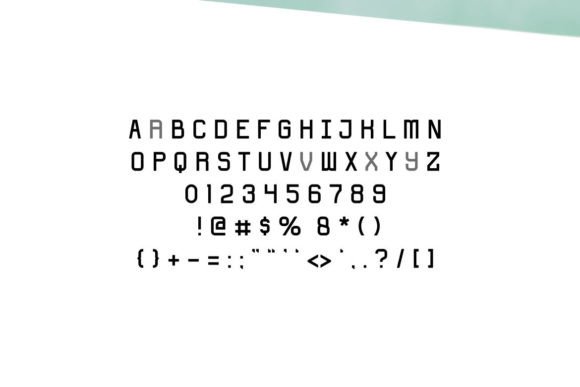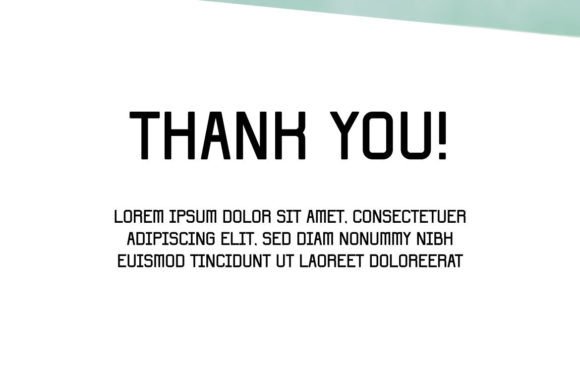
Getting Creative with the Perfect Font
Have you ever been in the middle of a design project, staring at a blank screen, and suddenly, the perfect font pops into your mind? For designers, this is a moment of pure joy. The right font can make all the difference between a good design and a great one.
That’s where the Indent Font comes in – a simple, clean, and natural sans serif font that’s perfect for a wide range of projects. Its versatility makes it a valuable design resource for creatives of all levels. Whether you’re working on a creative project with a transparent background or need a high-quality font for your next design, Indent Font is definitely worth considering.
Key Features of Indent Font
- High-quality design resource ideal for creative projects, with a transparent background for seamless integration.
- Consists of 12 stylish fonts with varying styles and weights, suitable for a wide range of design applications.
- Each font is carefully crafted to provide a unique aesthetic, perfect for adding a touch of elegance to your design project.
Honest Review: Indent Font
As a designer, I’m always on the lookout for high-quality design resources that can elevate my creative projects. The Indent Font is a solid addition to any design arsenal, and here’s why.
- Unique, modern aesthetic: The Indent Font has a distinctive look that’s perfect for adding a touch of sophistication to your designs.
- High-quality vectors: The font files are well-crafted and easy to work with, making them perfect for a variety of design applications.
- Limited language support: The Indent Font may not support as many languages as some other fonts, which could be a limitation for designers working on international projects.
- Not suitable for all backgrounds: Due to its transparent background, the Indent Font may not be the best choice for designs with busy or complex backgrounds.
Overall, the Indent Font is a solid choice for designers looking for a modern, high-quality font to add to their creative projects. While it may have some limitations, its unique aesthetic and free download make it a valuable design resource.
Indent Font
To get the most out of Indent Font, try experimenting with different indentation amounts and font styles. You can also use it in combination with other design resources, such as graphics and images, to create a visually appealing design. Additionally, you can download free high-quality font packs to use in your projects.
Indent Font is commonly used in a variety of design projects, including business presentations, marketing materials, and creative portfolios. It’s also a great way to add a touch of professionalism to your social media posts and website content.
Alternatives to Indent Font
Open Sans is a popular sans-serif font that offers a clean and modern look, perfect for creative projects that require a high-quality design resource. It’s available for free download and can be easily customized to suit your design needs.
When to use: Open Sans is ideal for digital products, websites, and apps that require a clear and easy-to-read font. It’s a great alternative to Indent Font for projects that require a more modern and sophisticated look.
Comparison: Open Sans has a more rounded and friendly feel compared to Indent Font, making it suitable for a wider range of creative projects. It’s also highly customizable and offers a transparent background option, making it a great choice for designers who want more flexibility.